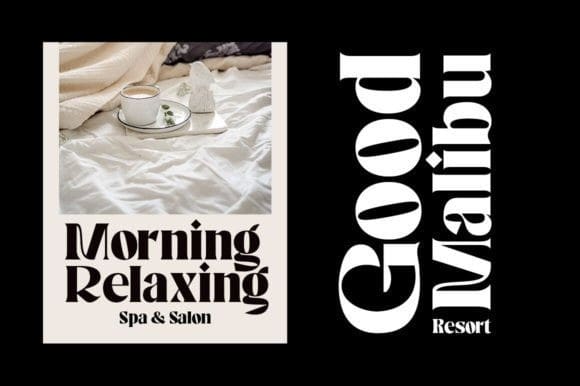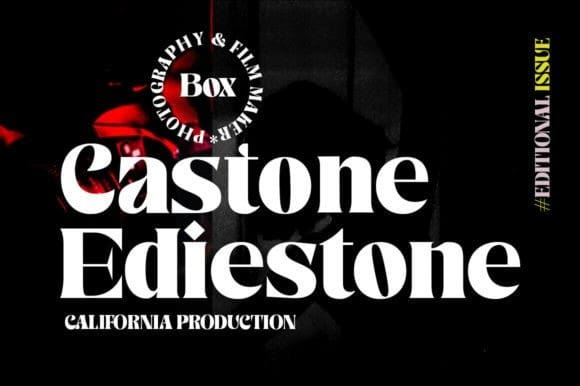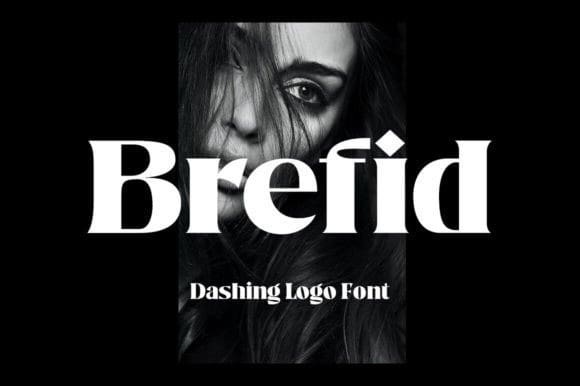
Brefid Font
Brefid Font is a luxurious yet elegant display font with characters that suit today’s styles will be very interesting for you to create any design work with a classy model that still maintains a calm and classy style to look at.